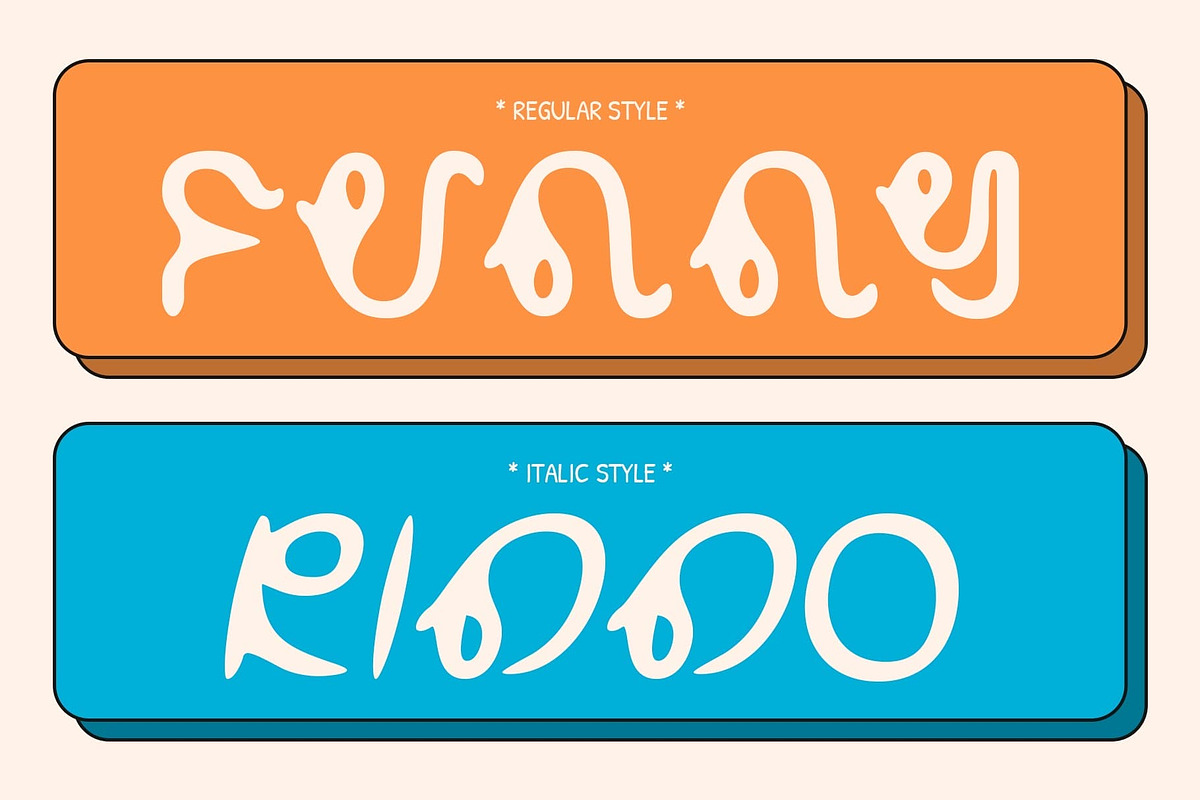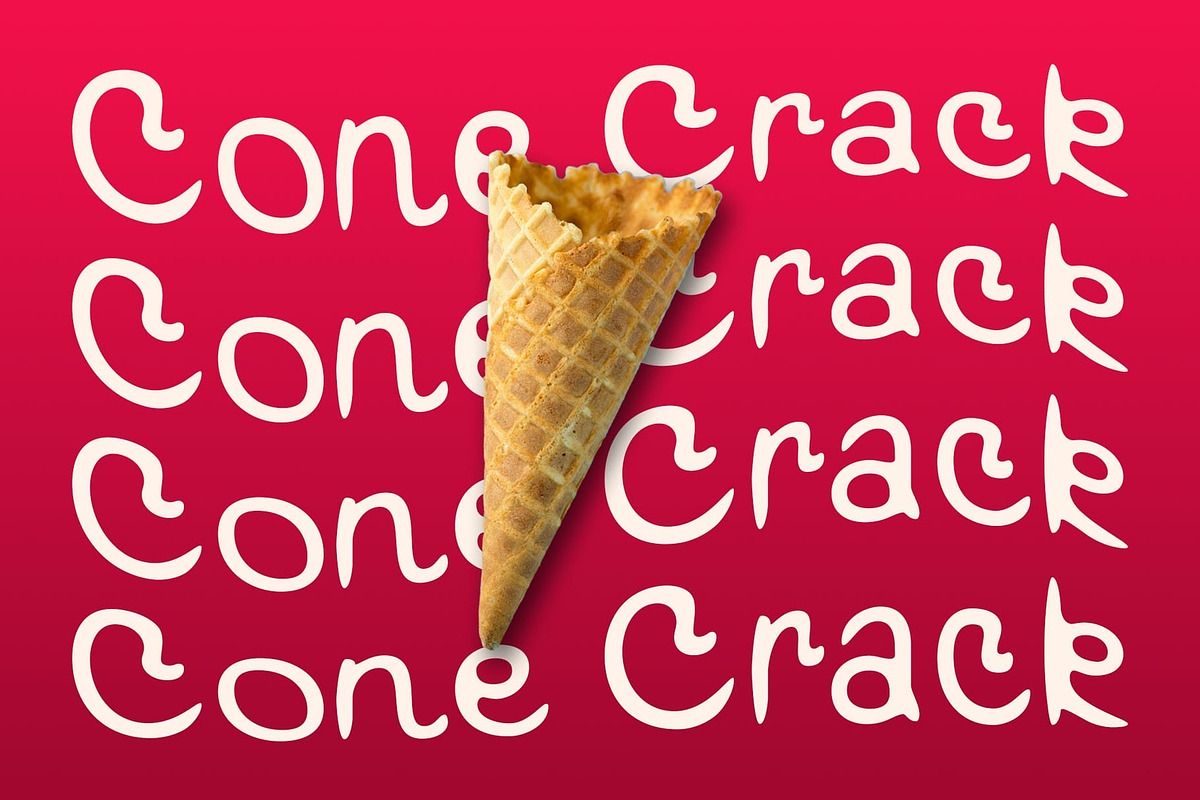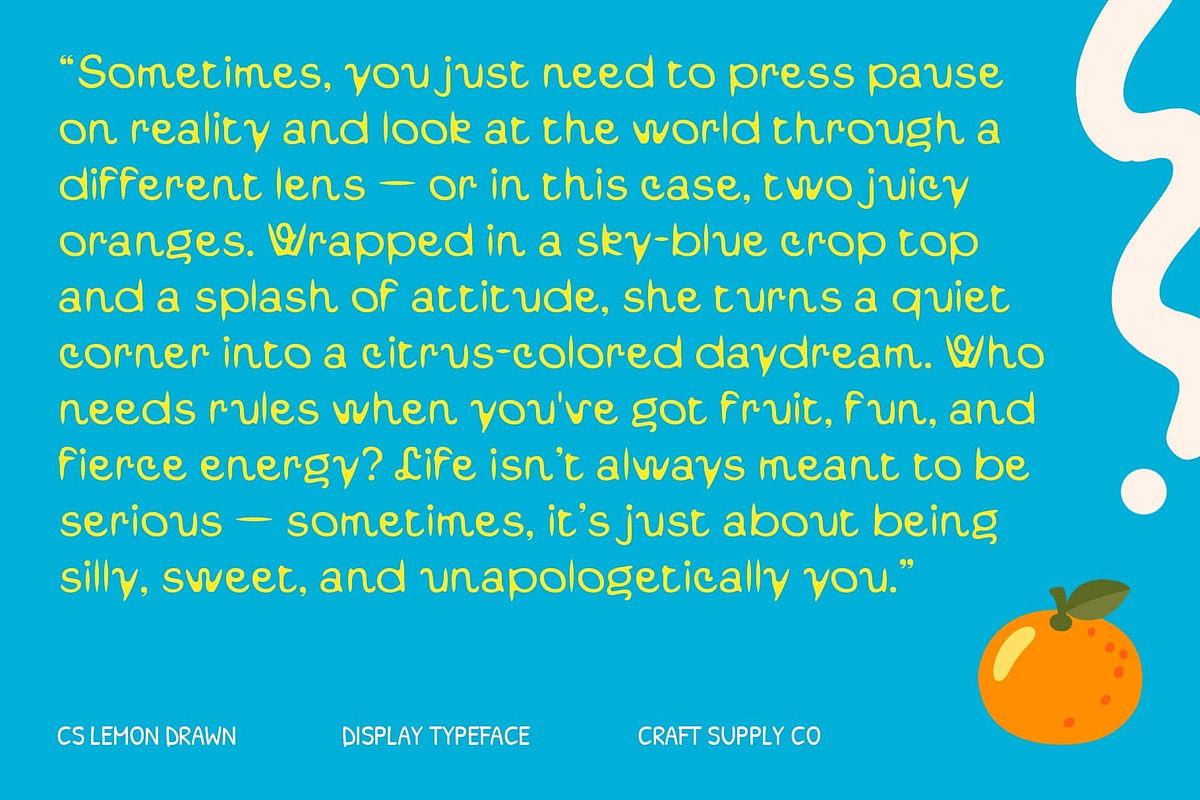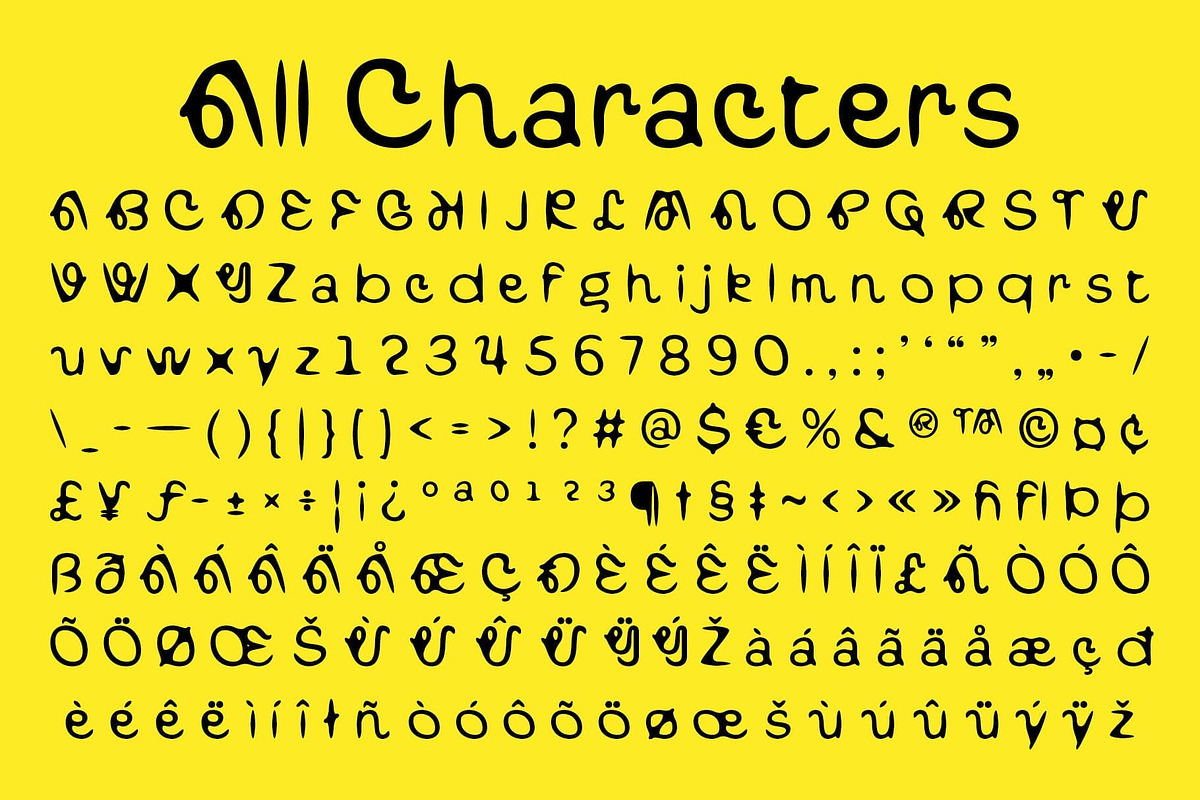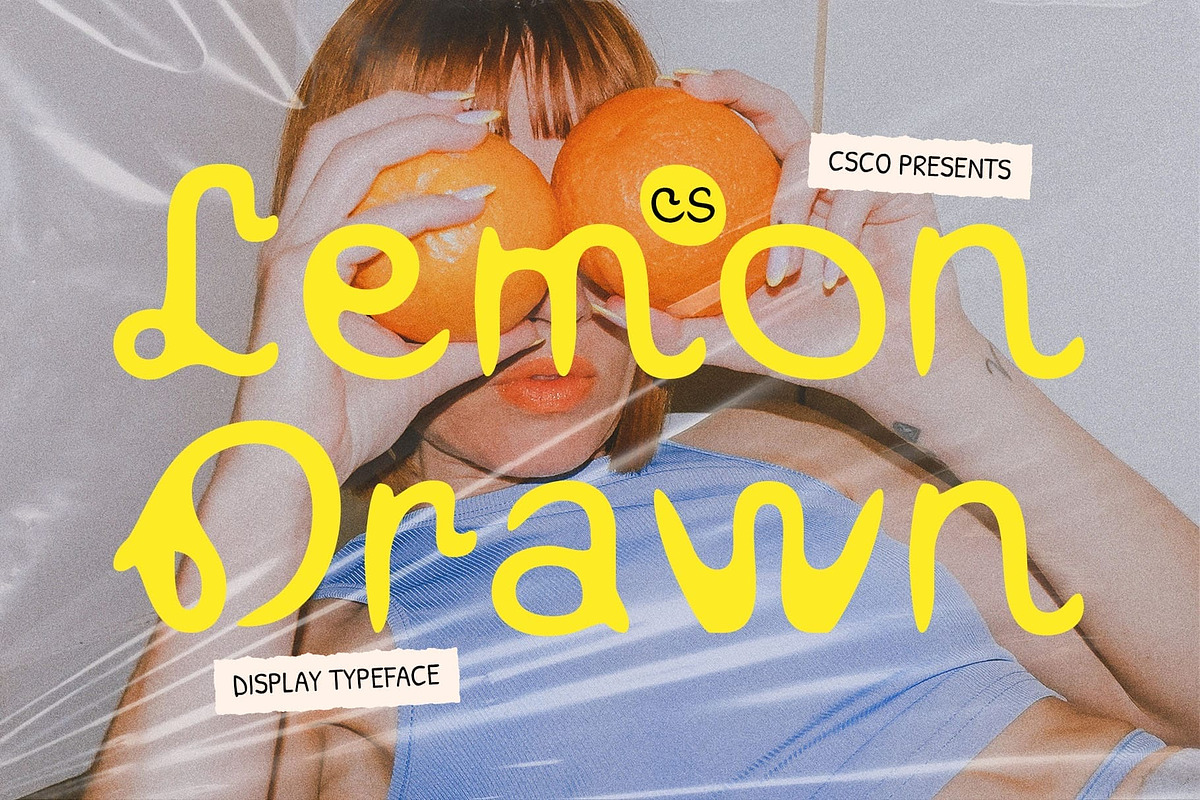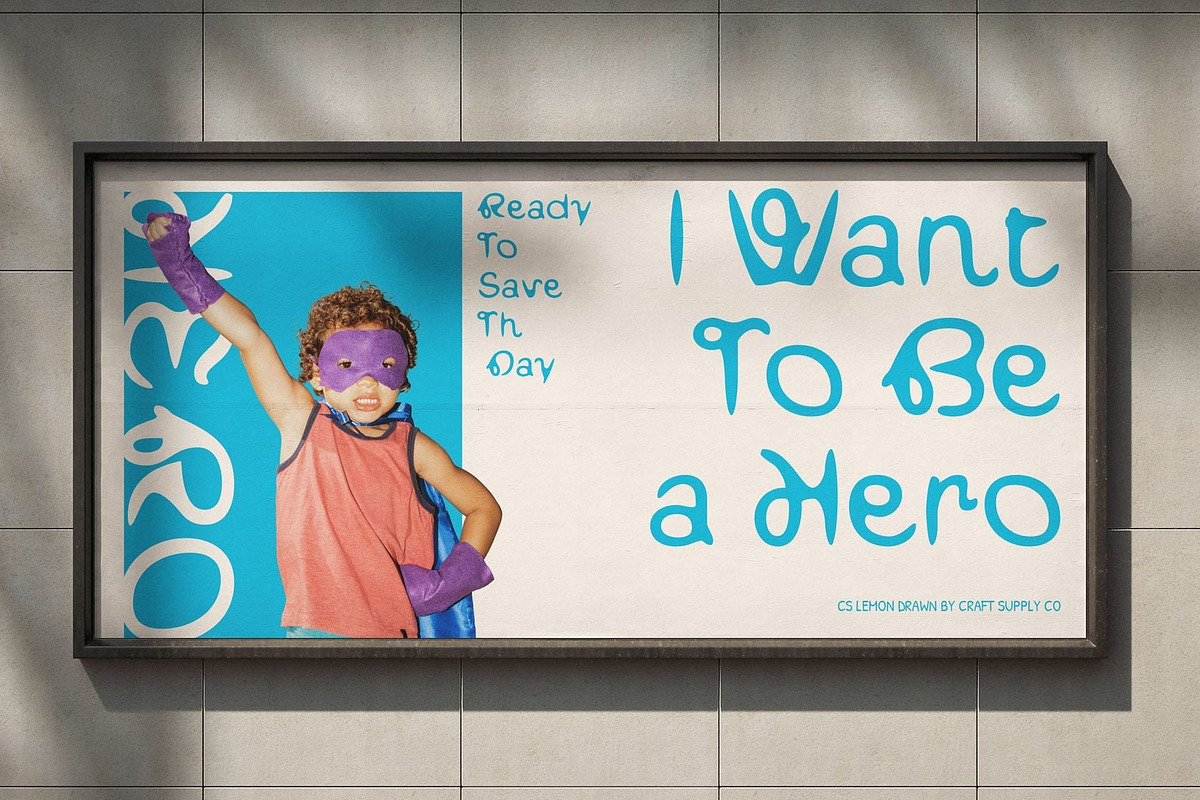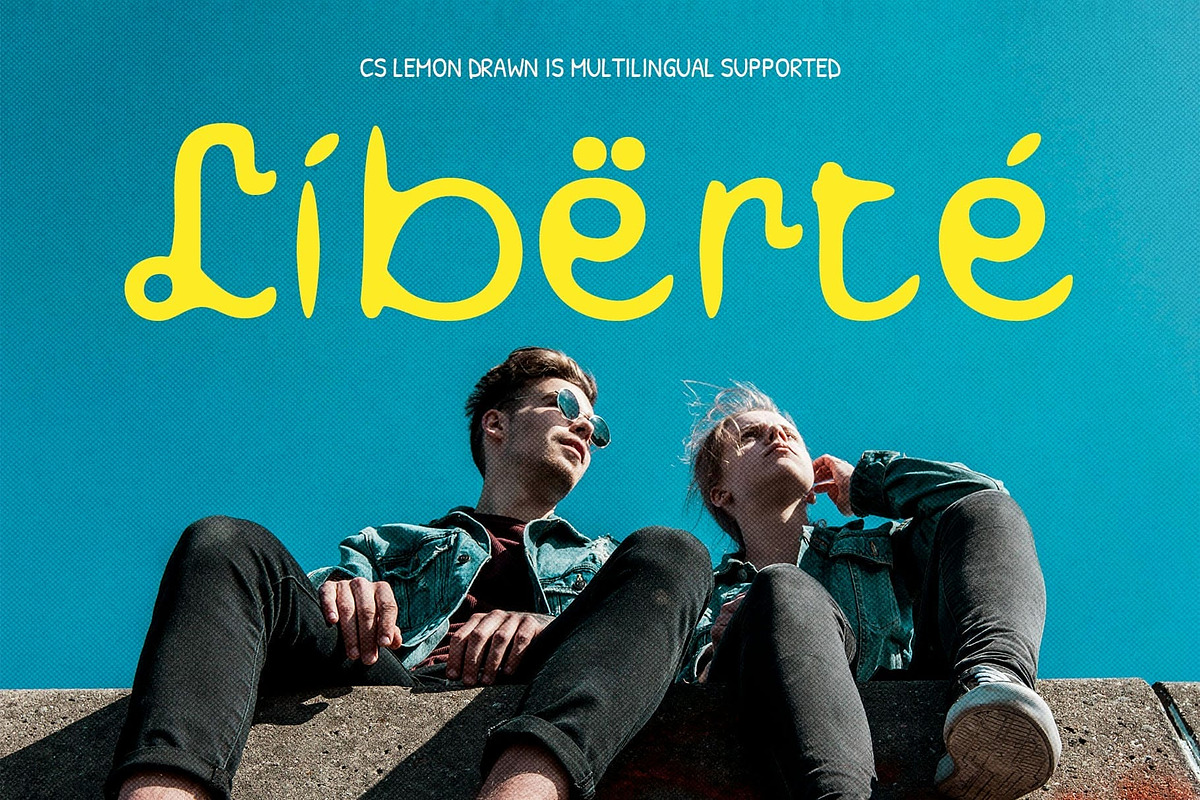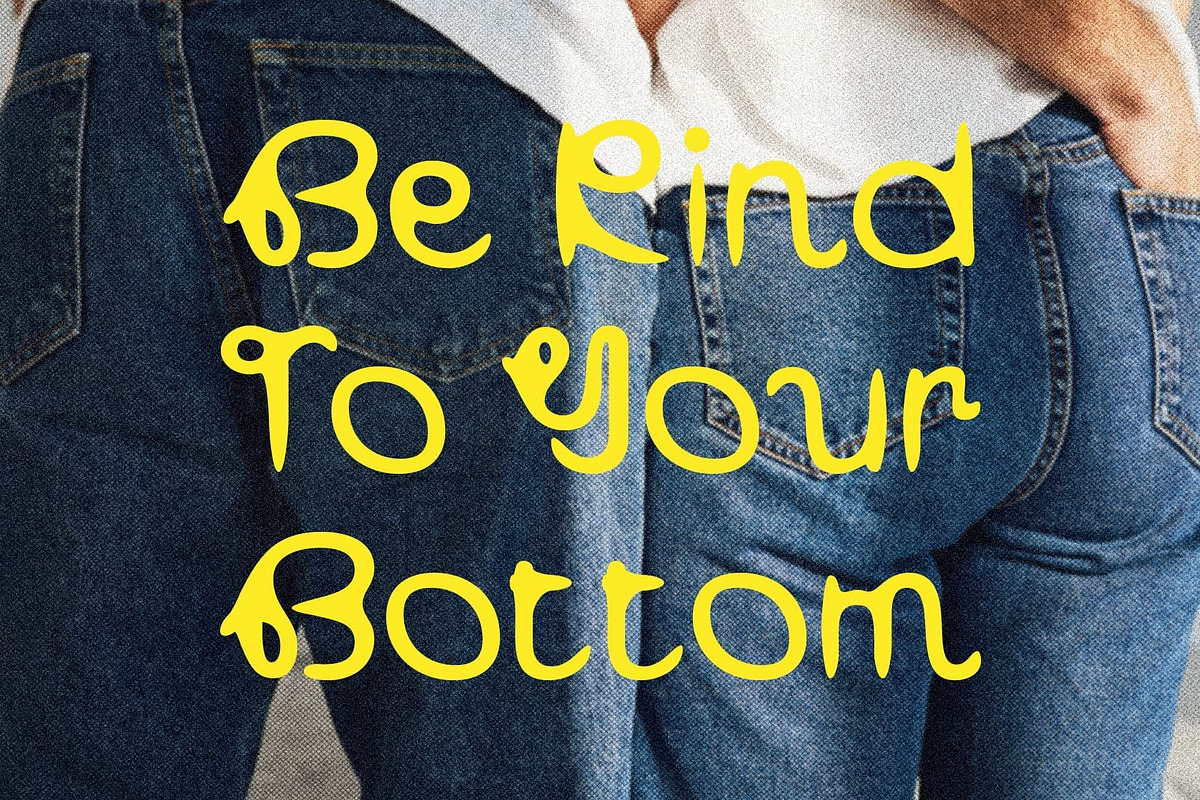
CS Lemon Drawn
CS Lemon Drawn – Playful Display Font with a Handcrafted Twist
Modern Simplicity with a Whimsical Edge CS Lemon Drawn is a modern display font that blends clean, contemporary letterforms with playful, curved shapes, resulting in a look that feels funky, cute, and full of energy. Its structure is approachable yet expressive, making it instantly engaging and visually delightful.
Hand-Drawn Charm and Friendly Personality Each letter features a subtle drawn effect, adding organic texture and a handmade touch that brings warmth and personality. The slightly irregular strokes create a sense of movement and joy—ideal for designs that want to feel creative, personal, and approachable.
Perfect for Youthful and Imaginative Projects Whether you’re designing for children’s books, toy packaging, fun product labels, or creative illustration-based branding, this whimsical font provides a lighthearted, vibrant tone. Its unique charm makes it a standout choice for any project aiming to combine modern design sensibility with playful energy.
Expressive and Joyful Typography This soft and approachable font isn’t just a typeface—it’s a creative tool for expressing joy, imagination, and a touch of handcrafted charm. Use it to give your designs a refreshing personality that connects with audiences of all ages. From greeting cards to social media visuals, it helps establish a cheerful brand presence with a strong visual identity.